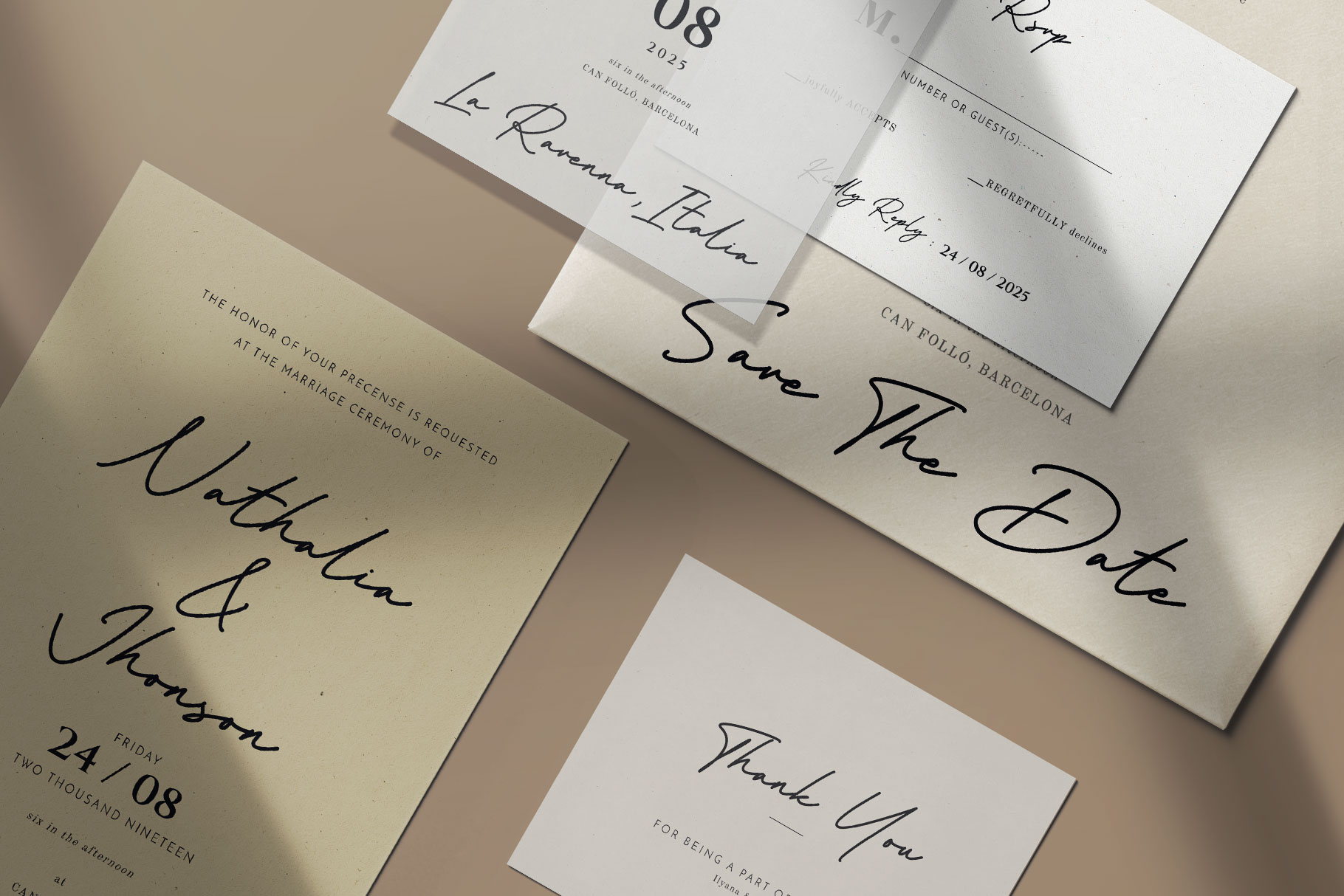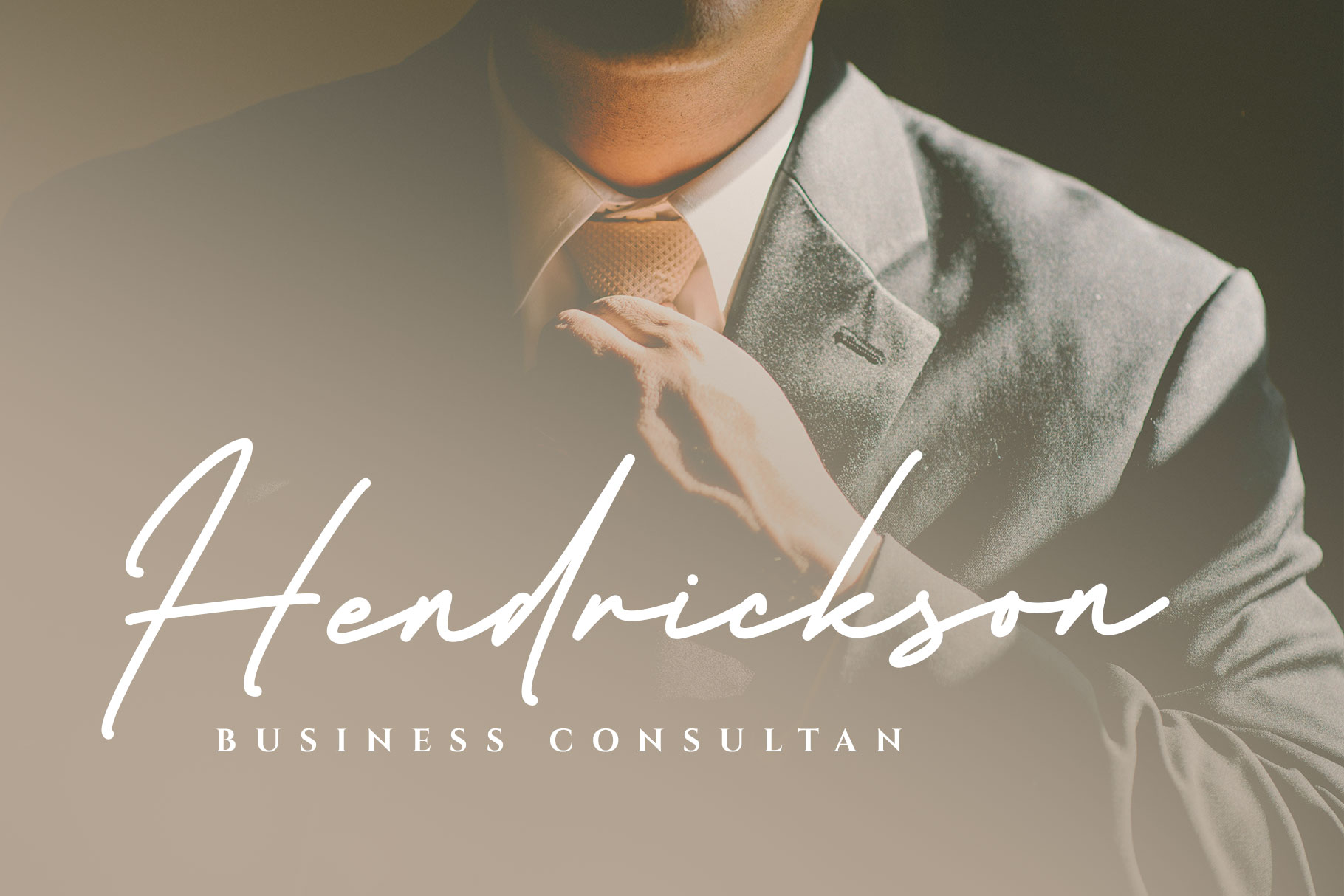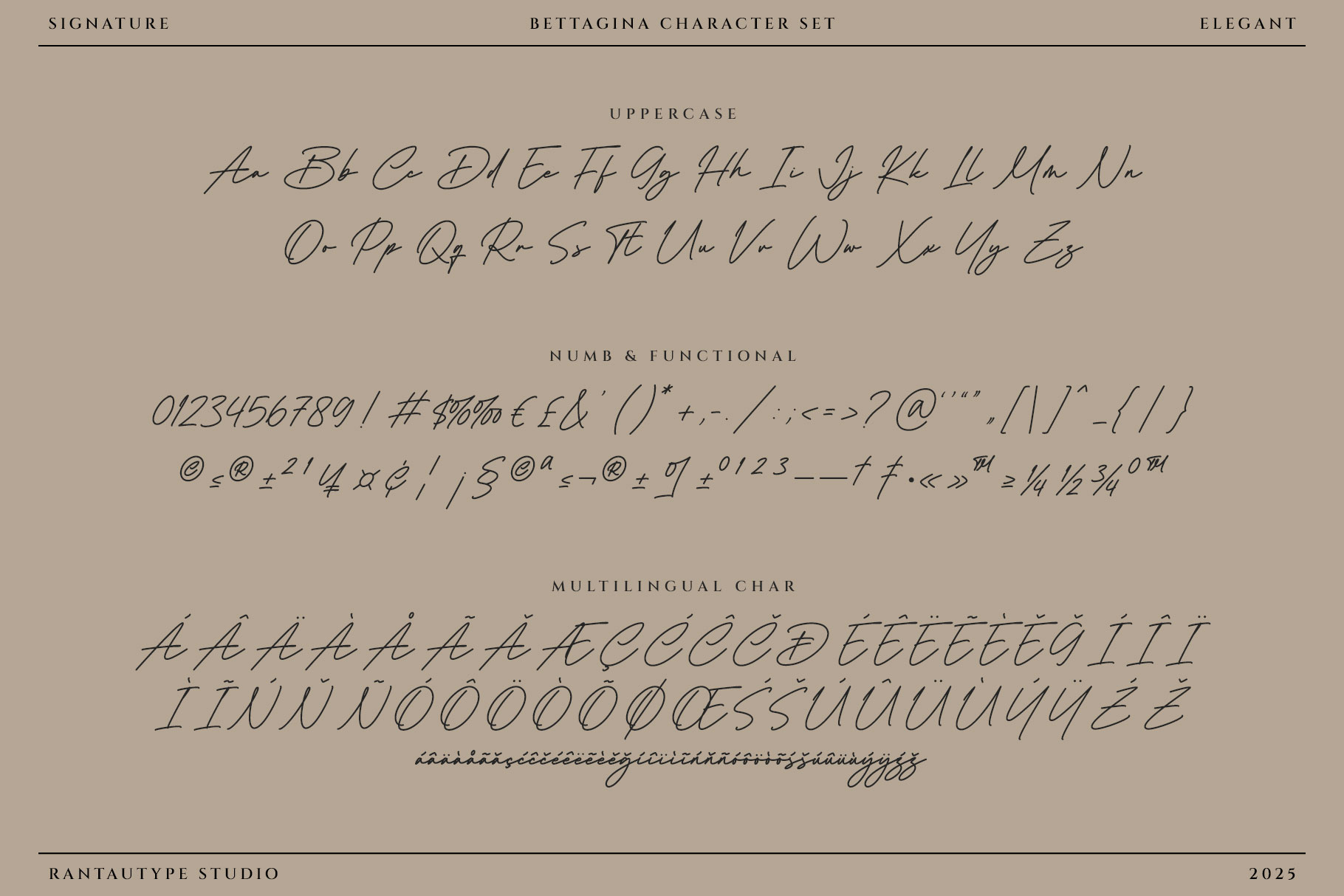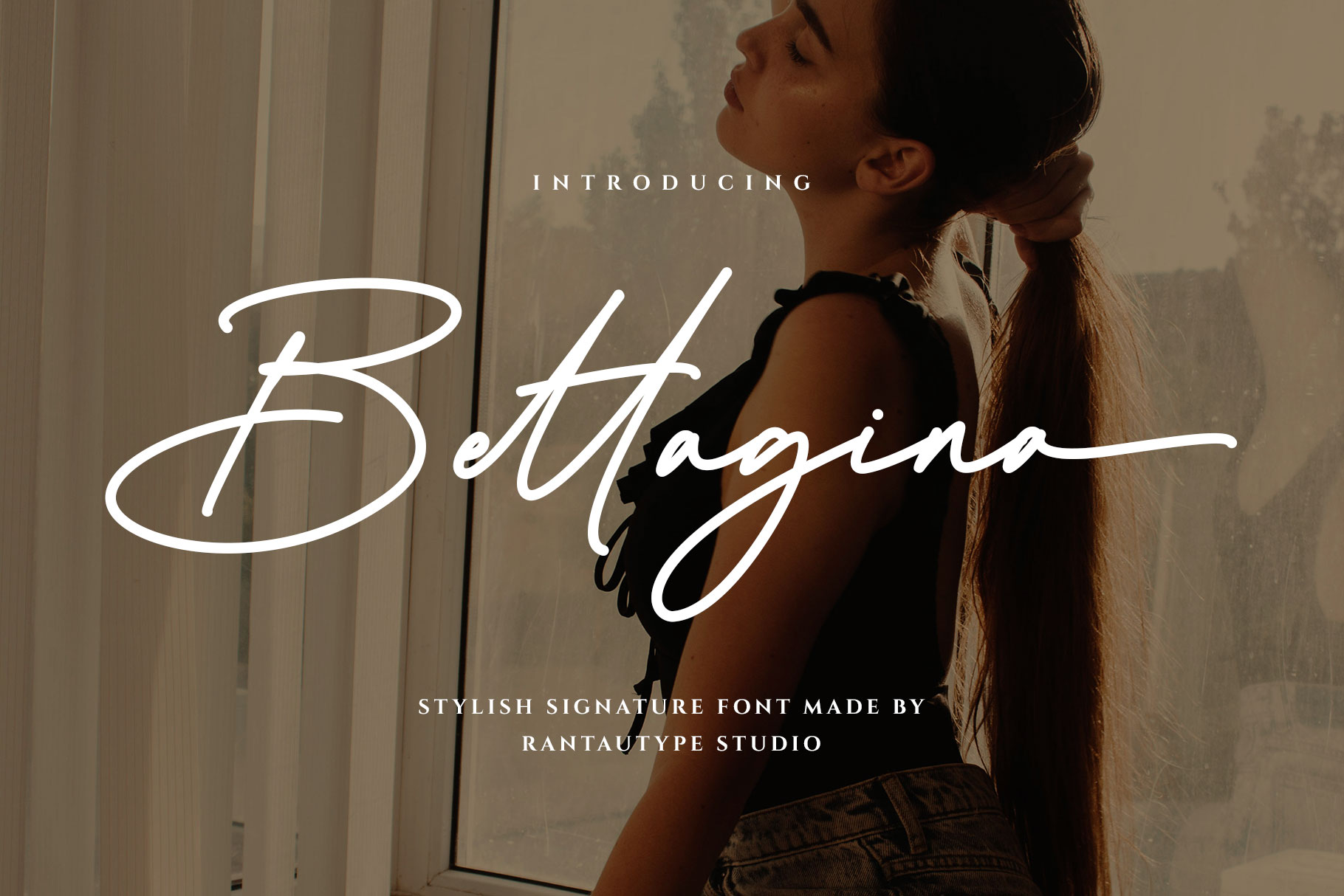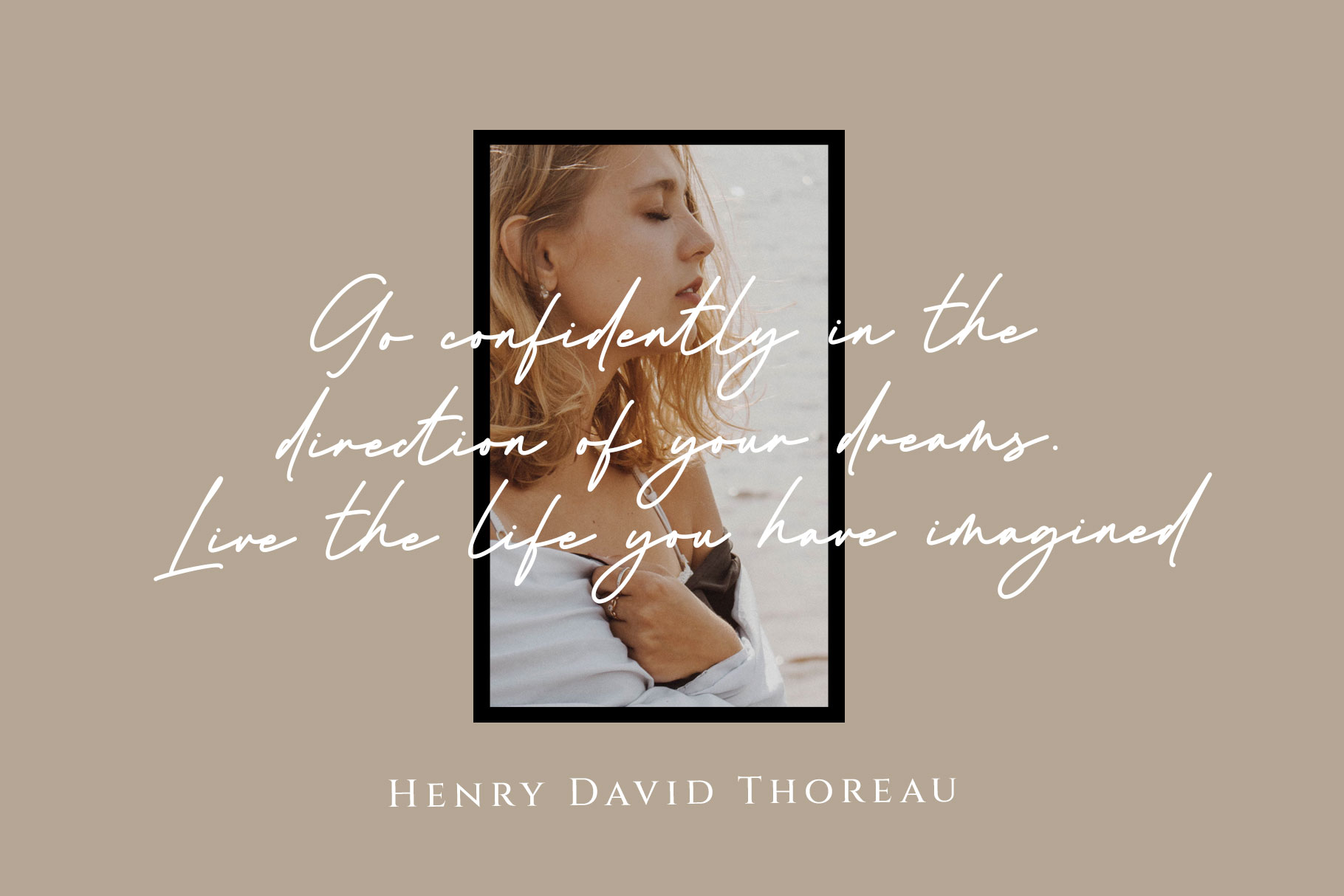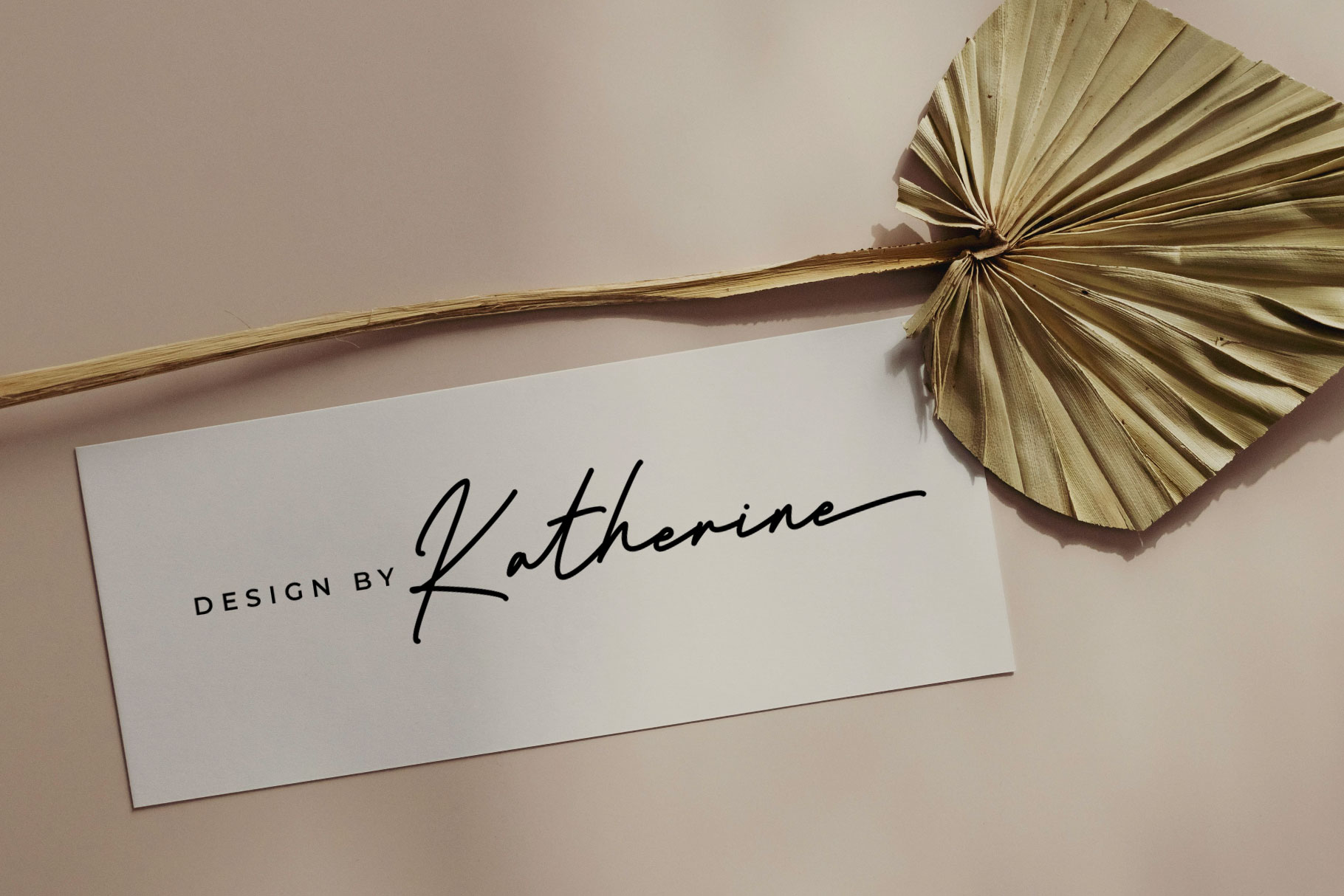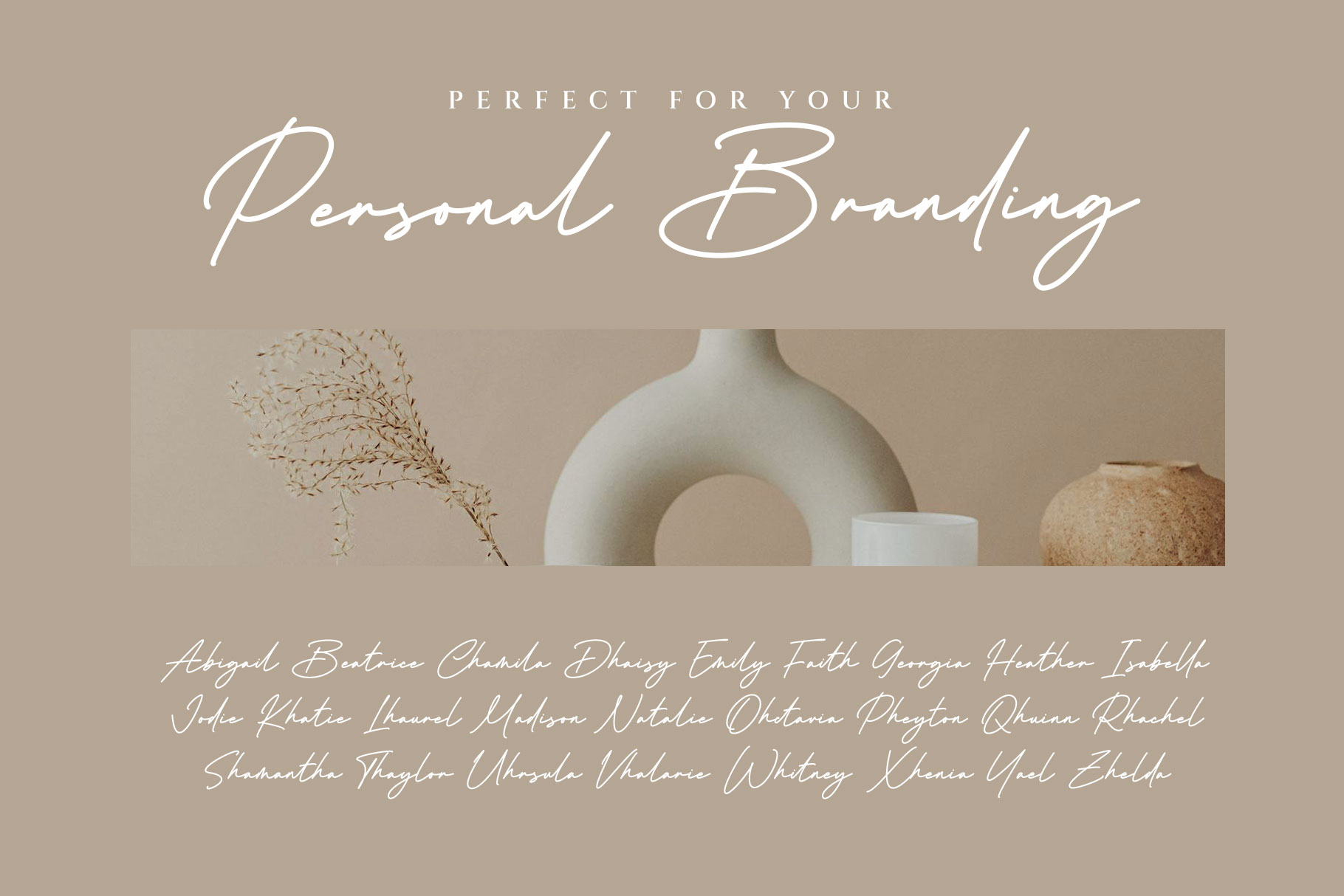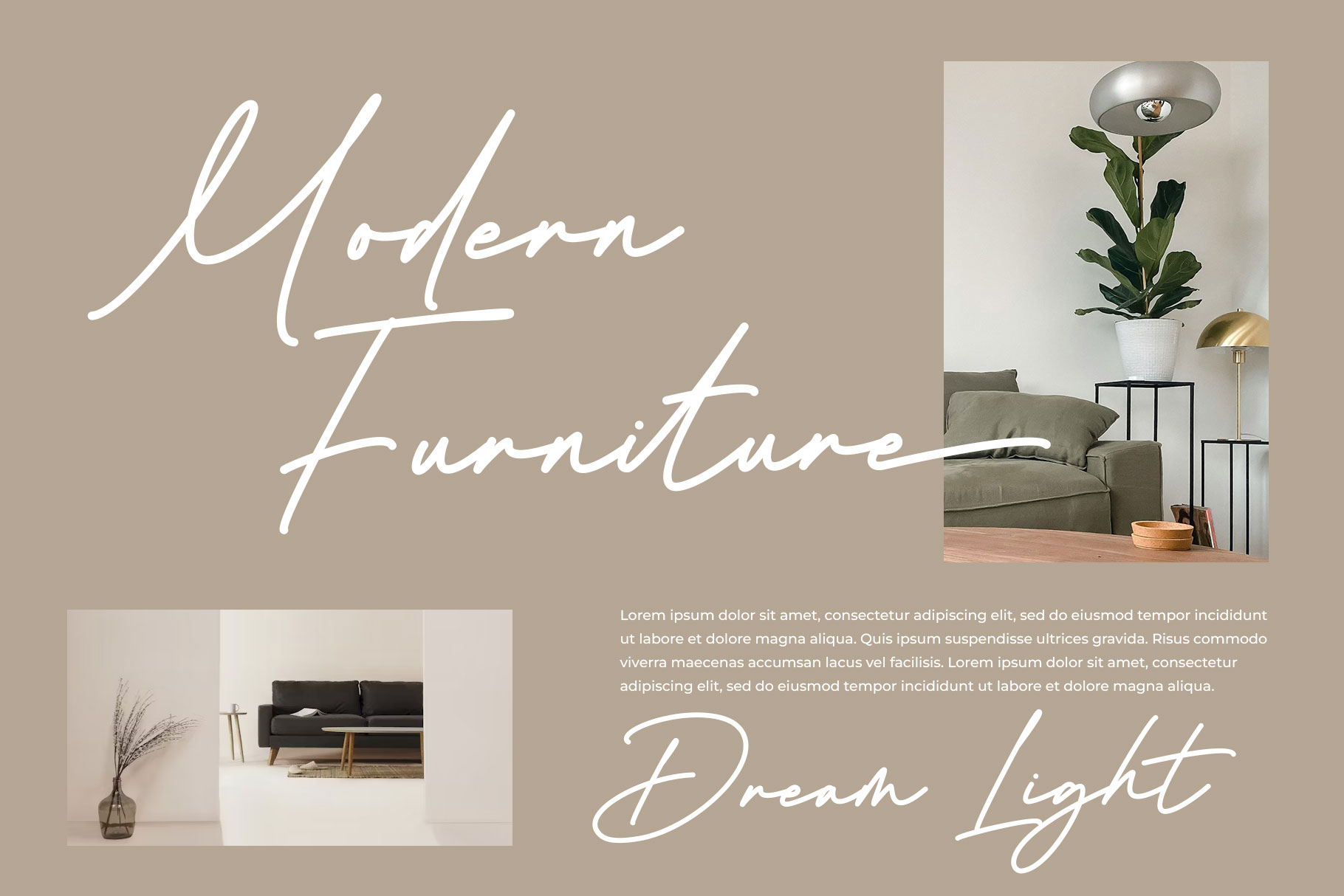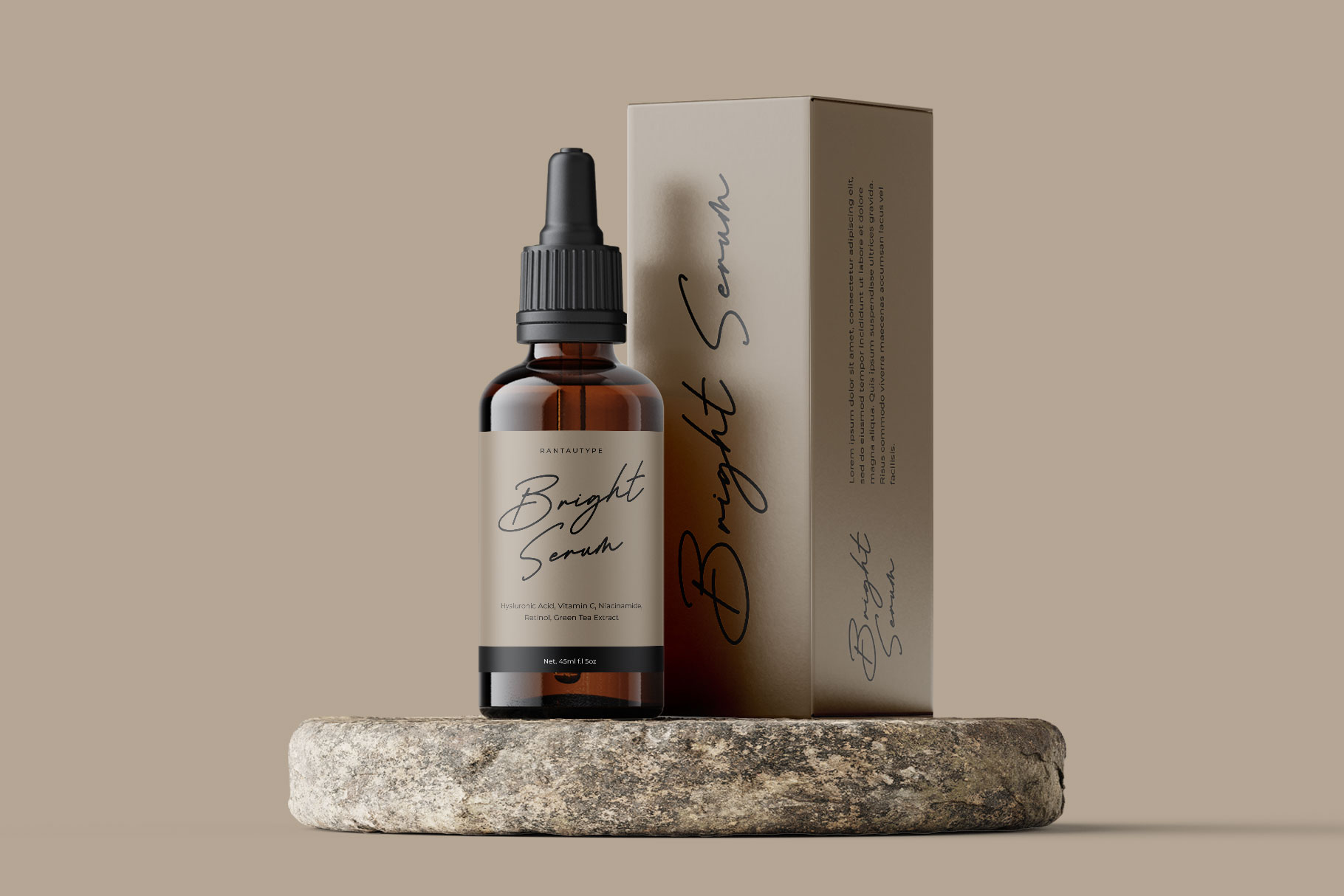
Bettagina is stylish signature font with exudes sophistication and modernity, often with graceful curves and flowing connections between letters. Bettagina come with smooth, continuous strokes with consistent line thickness, emulating elegant handwriting
Bettagina is a perfectly choice for any creative endeavor, creating, modern, lifestyle design such as logotype, title, cover, branding, invitations, wedding designs, display and magazine, social media posts, advertisements, printed quotes, product packaging, corporate brand, product designs, labels, photography, watermarks, special events and any other project with handwritten feel.
Bettagina Stylish Signature Font